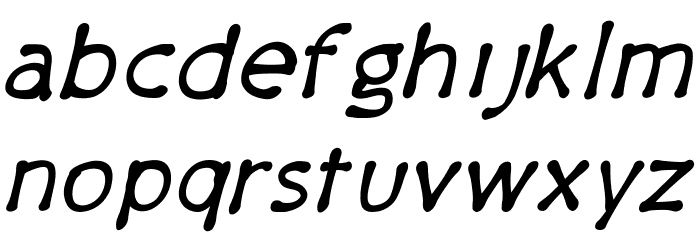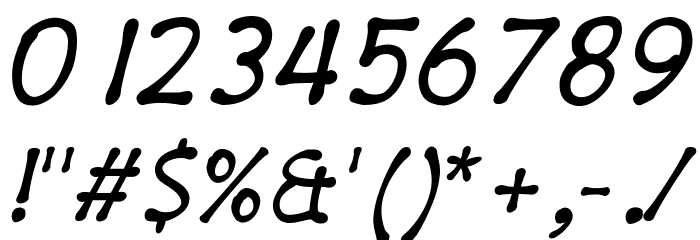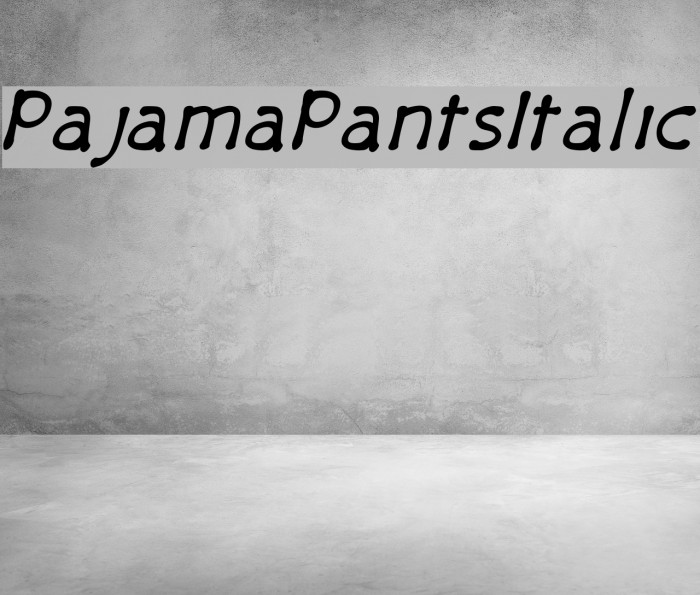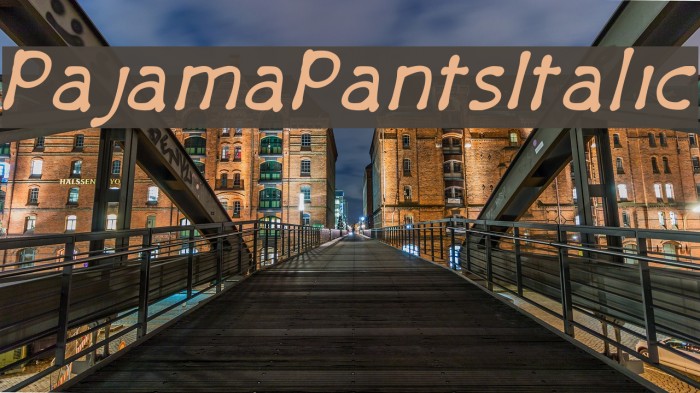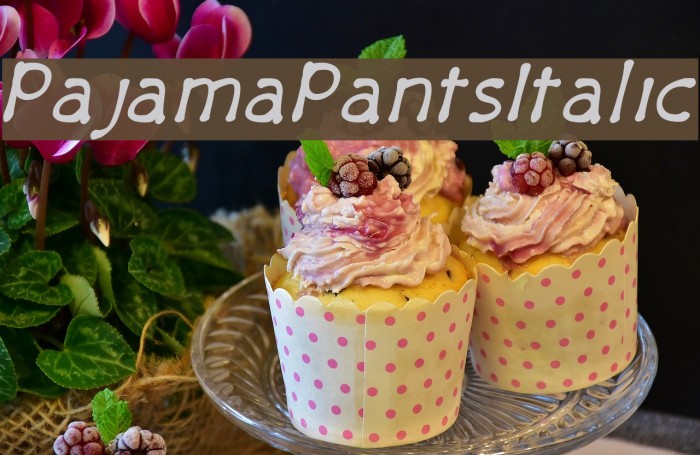
PajamaPantsItalic Font
This font exhibits a playful and casual handwritten style, characterized by its smooth, flowing curves and slightly slanted orientation. The letters are well-rounded with a consistent stroke width, giving it a friendly and approachable appearance. The uppercase and lowercase letters maintain a harmonious balance, while the numerals and special characters integrate seamlessly into the overall design. Its informal yet legible nature makes it suitable for a variety of creative applications.
A playful, handwritten font with smooth curves and a casual slant.
- Proposed Projects: Ideal for greeting cards, children's books, casual branding, and social media graphics.
- Overall Style: Casual
- Use Case: Headlines, Informal text, Creative projects